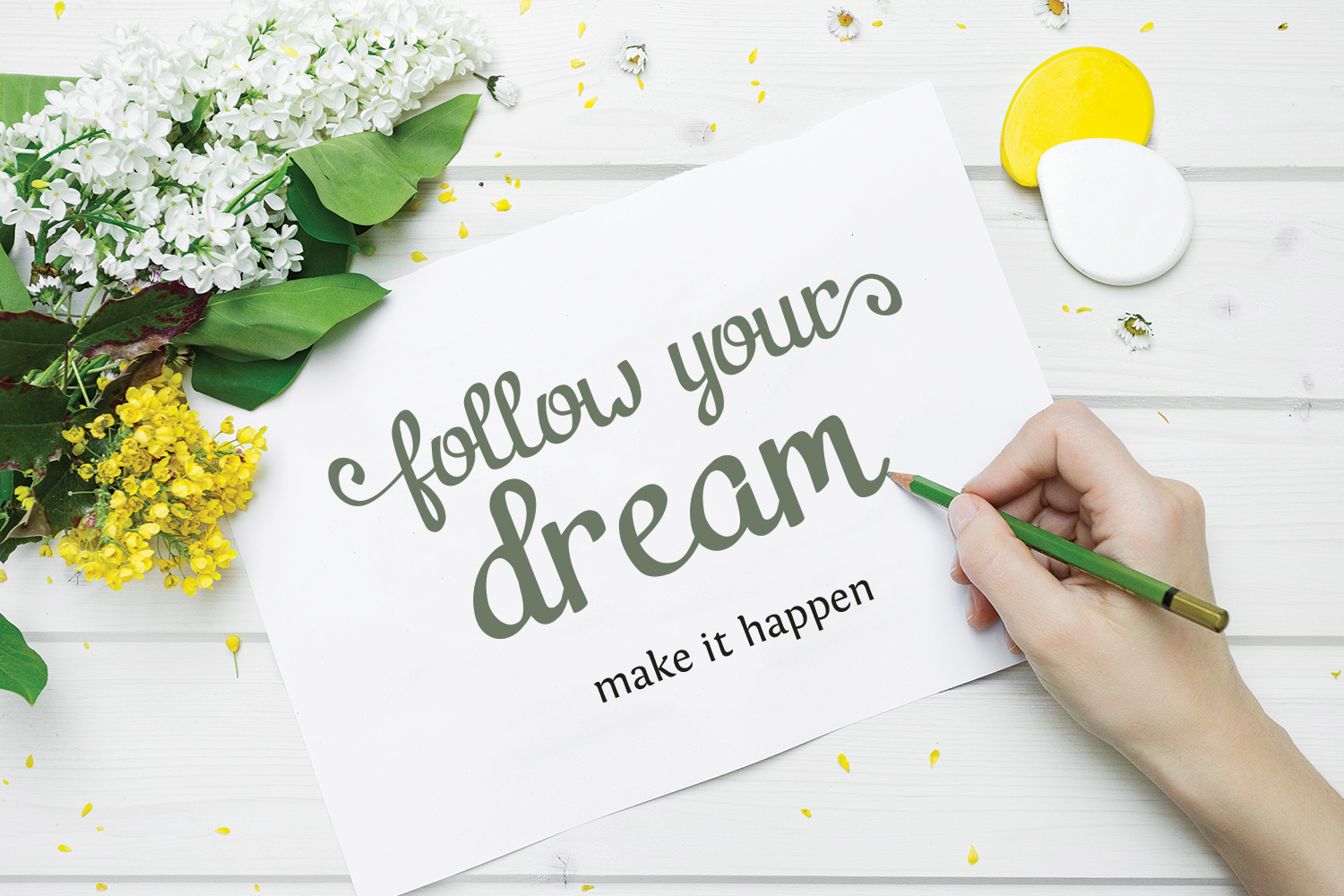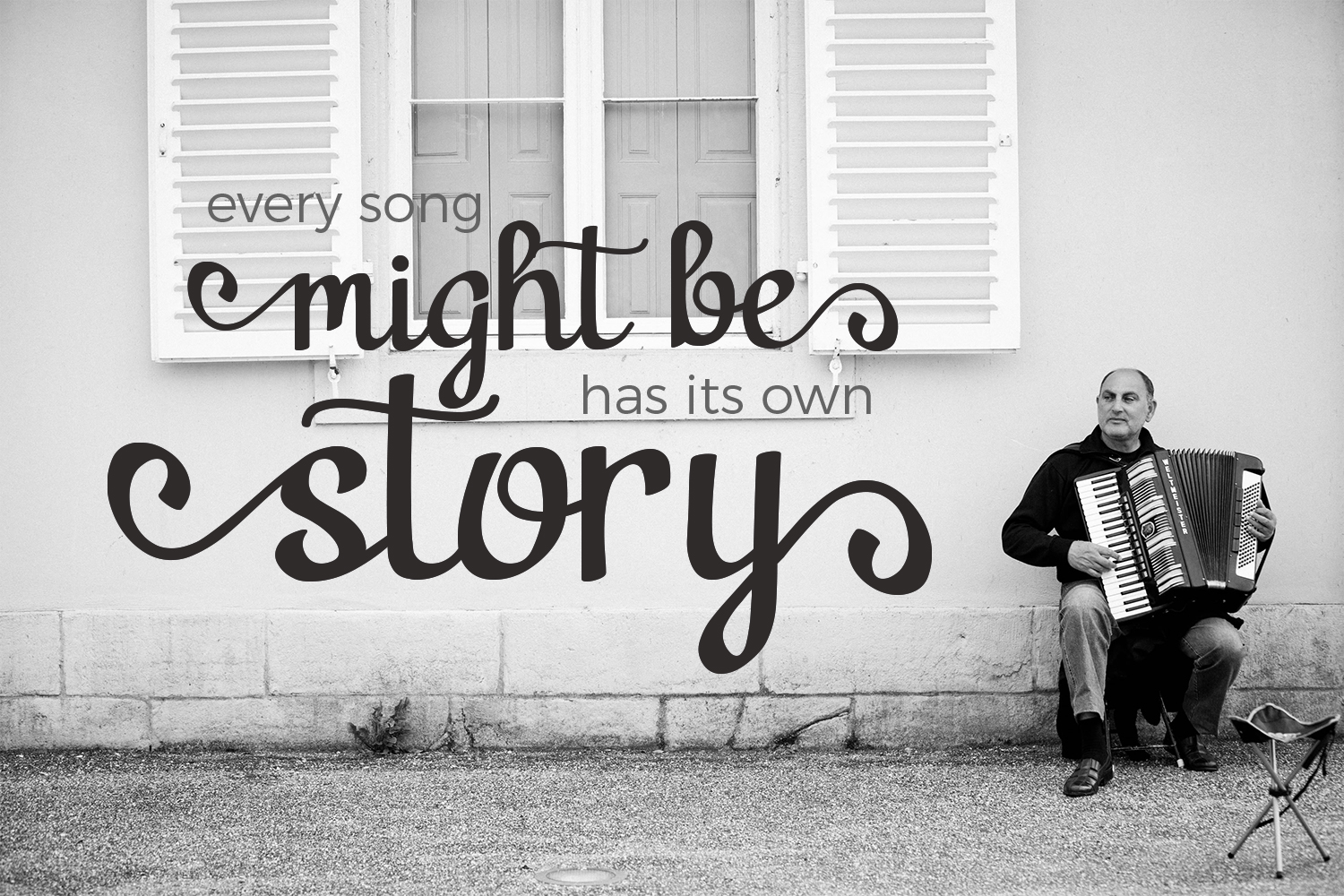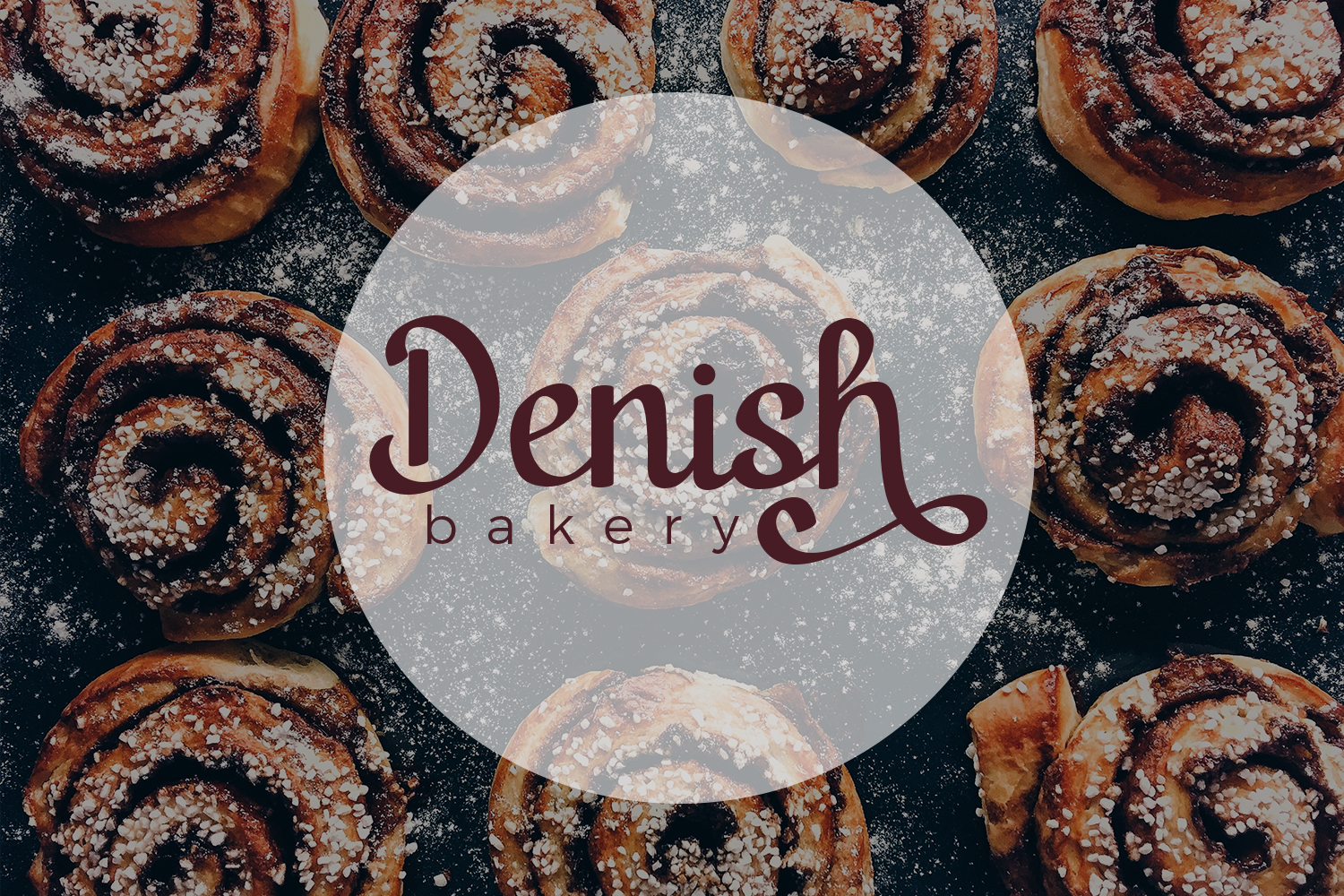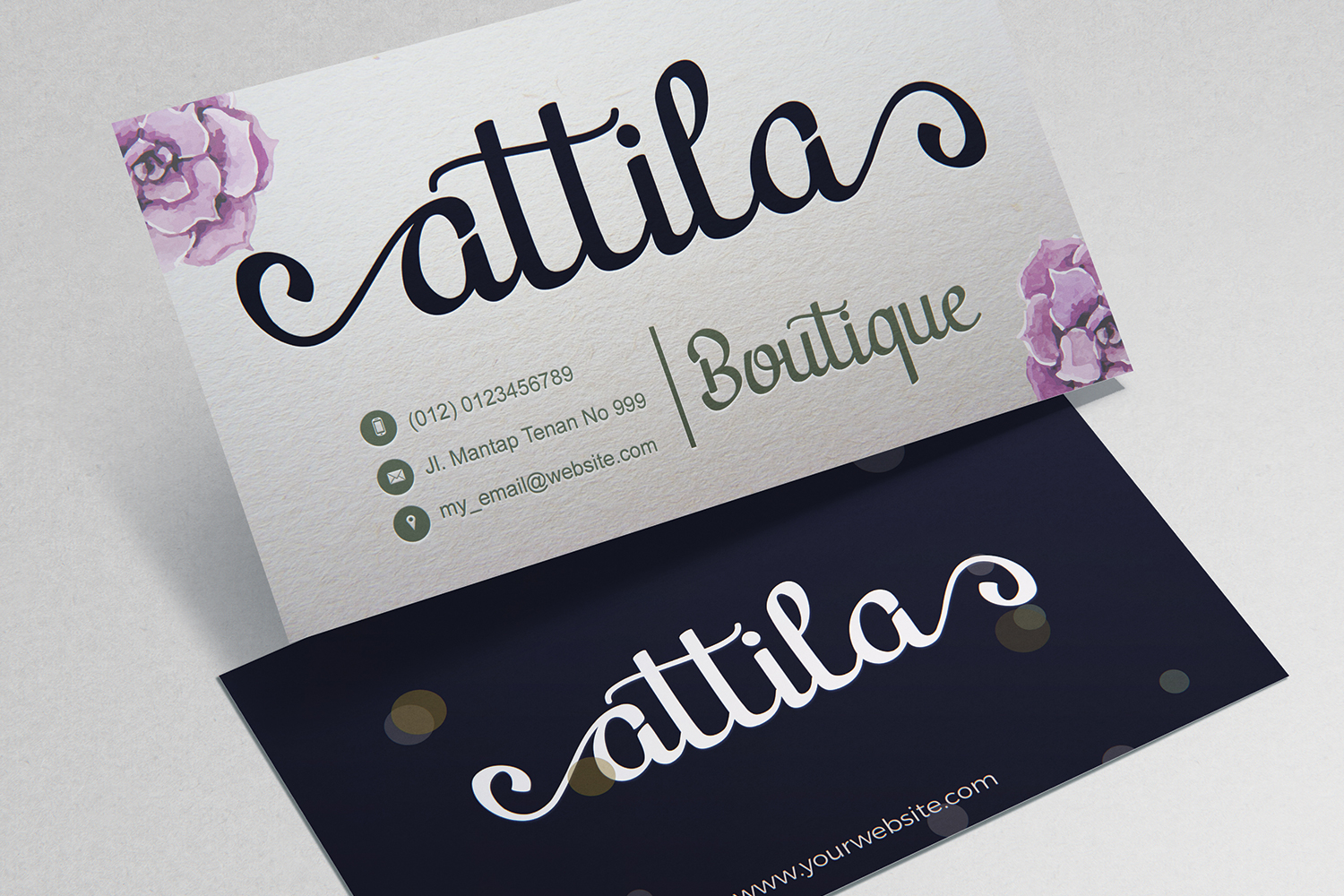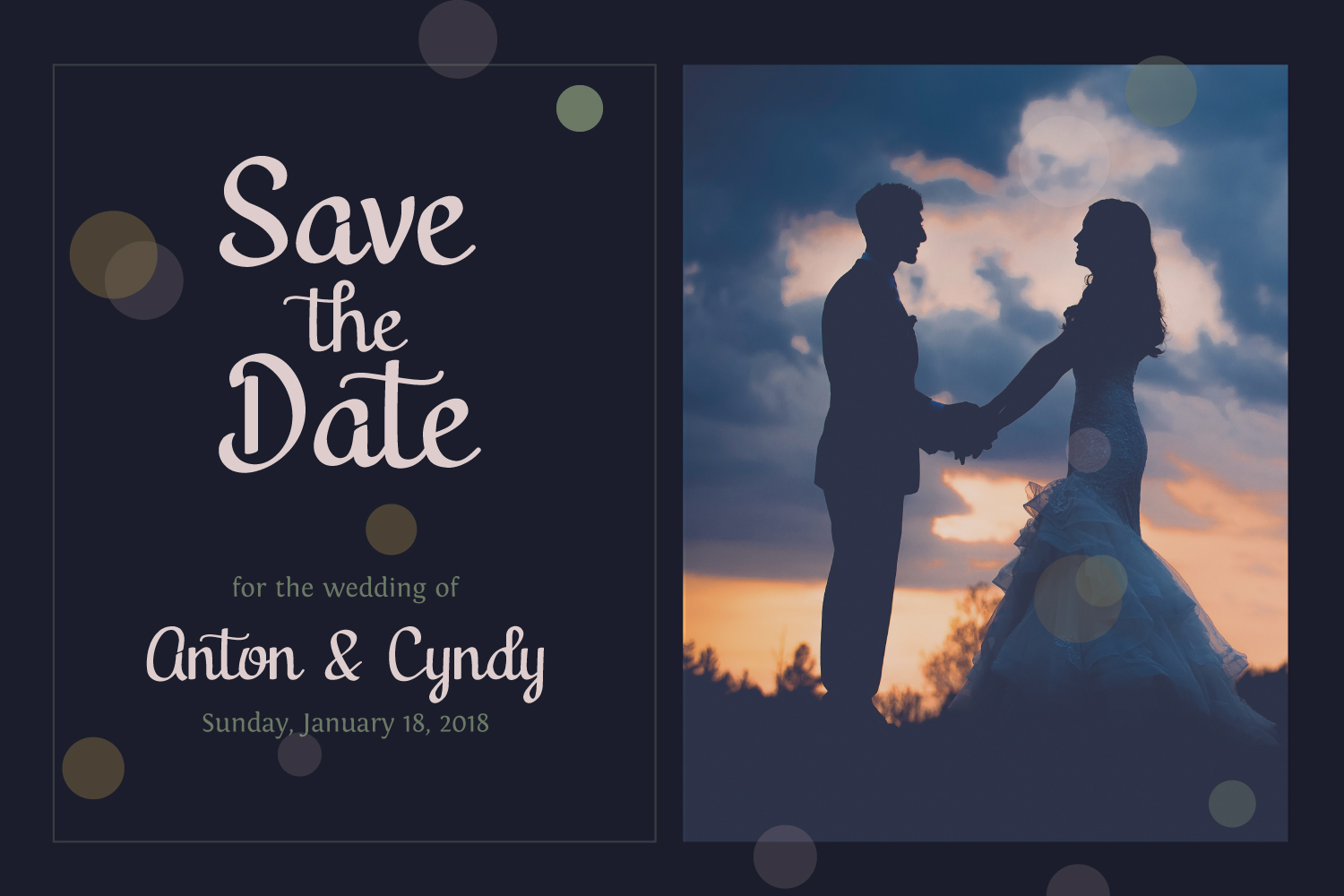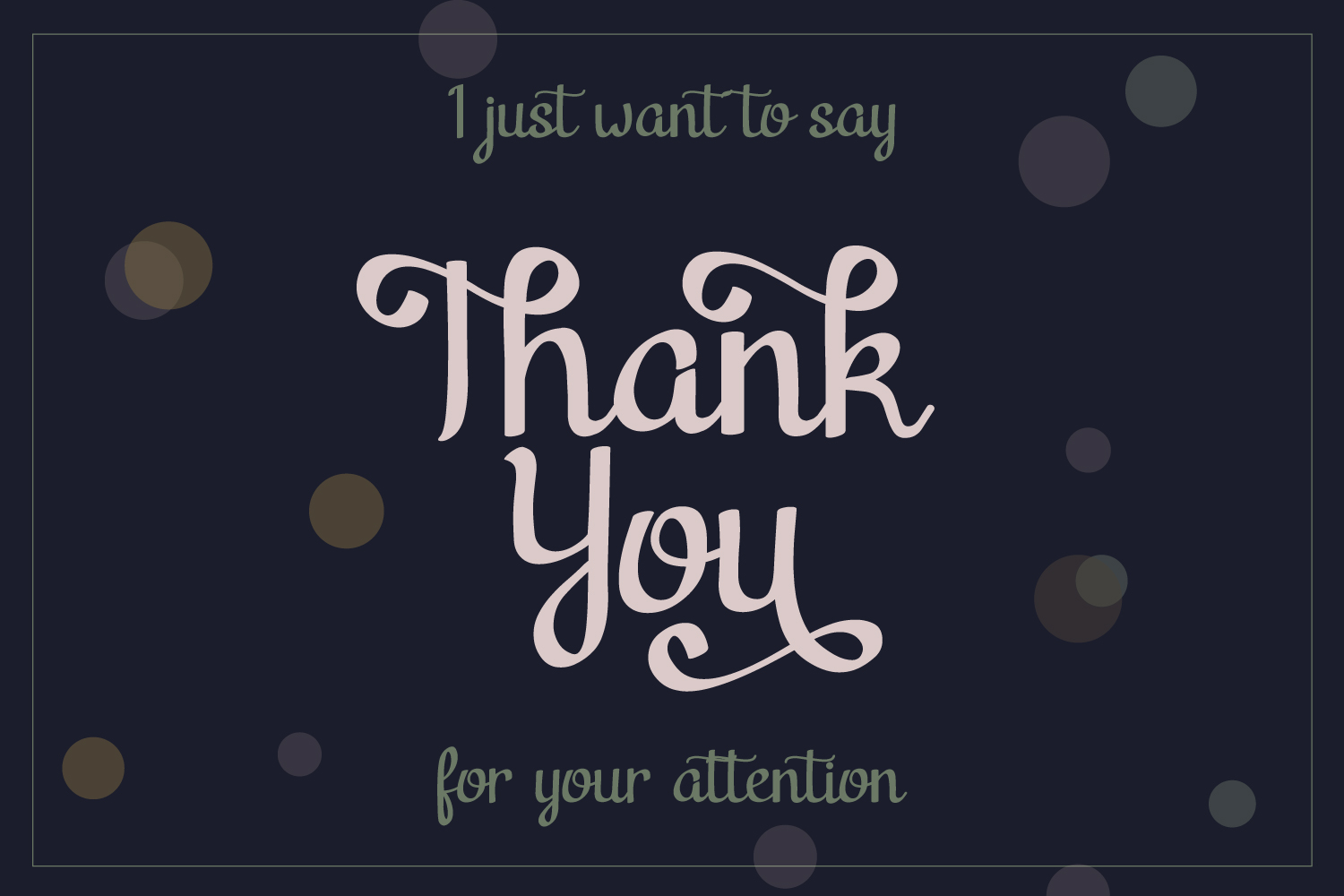
The Birth of a Beautiful Script
There’s something magical about discovering a new font that sparks creativity and sets your imagination ablaze. For designers, this moment is a treasure trove of possibilities, and it’s exactly what happens when you lay eyes on the stunning Kalimat Font.
Conceived with modern calligraphy and handwritten styles in mind, Kalimat Font is the perfect blend of romance and practicality. Whether you’re crafting a wedding invitation, a brand identity, or a personal blog, Kalimat Font’s versatility makes it an invaluable addition to your design toolkit.
As a designer, you’ll appreciate the beauty and elegance that Kalimat Font brings to your projects, elevating them from ordinary to extraordinary. With its unique flair and sophistication, Kalimat Font is sure to leave a lasting impression on your audience, making it a valuable asset for any design project.
Kalimat Font Key Features
- Unique Characteristics: Kalimat Font features a unique, hand-drawn aesthetic with subtle nuances in letterform design, giving it a distinctive and eye-catching appearance.
- Language Support: Kalimat Font supports a wide range of languages, including Arabic, Persian, and Urdu, making it an excellent choice for multilingual designs.
Designer Review: Kalimat Font
Overall, I’m impressed with the Kalimat font’s unique aesthetic and versatility. ✨ The font’s calligraphic feel and intricate details make it perfect for creating visually striking headings and titles. ✨ The font’s versatility also shines through in its various font weights and styles, which can be used to convey a wide range of emotions and moods.
One of the standout features of Kalimat is its ability to evoke a sense of luxury and sophistication. ✨ It’s perfect for high-end branding, fashion, and lifestyle designs. Additionally, the font’s elegant feel makes it an excellent choice for creating invitations, certificates, and other formal documents.
- ⚠️ Readability in smaller font sizes can be a challenge due to the intricate details and fine lines of the font.
- ⚠️ The font may not be suitable for body text or long blocks of text due to its decorative nature.
- ⚠️ Some characters may not render correctly in certain font sizes or styles, which can affect the overall design.
In conclusion, Kalimat font is a great choice for designers who want to add a touch of elegance and sophistication to their designs. While it has some limitations, its unique aesthetic and versatility make it a valuable addition to any designer’s toolkit.
The Kalimat font is ideal for:
- Creating elegant and sophisticated designs.
- Adding a touch of Middle Eastern flair to your projects.
- Designing invitations, business cards, and other marketing materials.